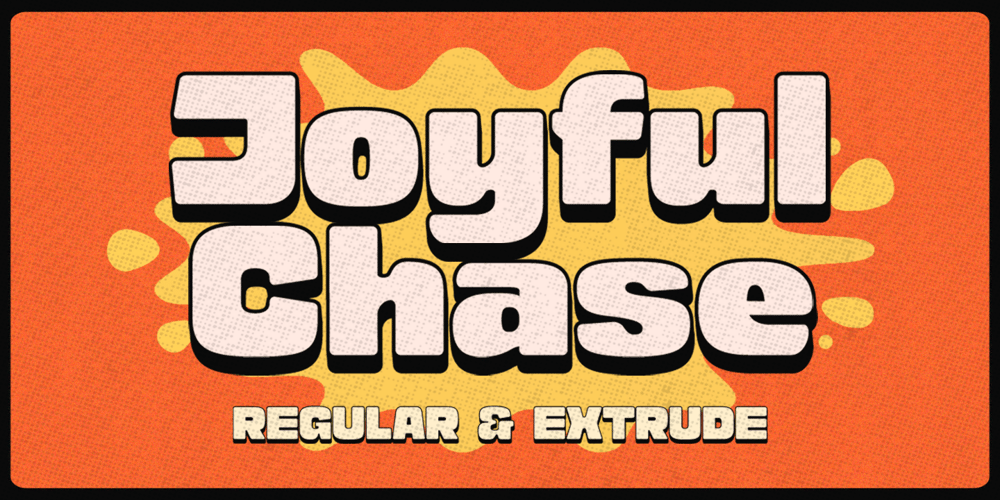
Joyful Chase Font Family was designed by Hendry Juanda and published by Letterhend. Joyful Chase contains 2 styles and family package options. Joyful Chase is a display font that effortlessly combines playfulness and classic charm. It comes with extrude style, this option adds depth and dimension to your text, creating a visually striking effect that demands attention.This letterforms bring a sense of fun and excitement to your designs, making it ideal for children’s books, cheerful branding, and creative projects that seek to inspire happiness and wonder.Features : Uppercase & lowercase Numbers and punctuation Alternates & Ligatures Multilingual PUA encoded We highly recommend using a program that supports OpenType features and Glyphs panels like many of Adobe apps and Corel Draw, so you can see and access all Glyph variations.